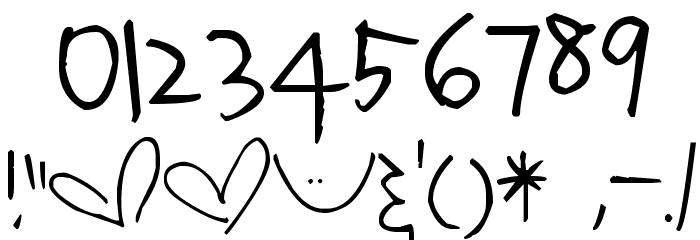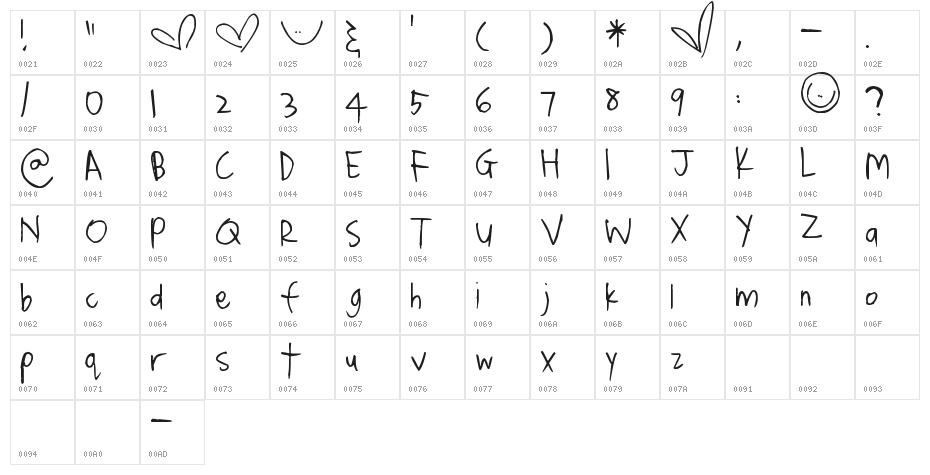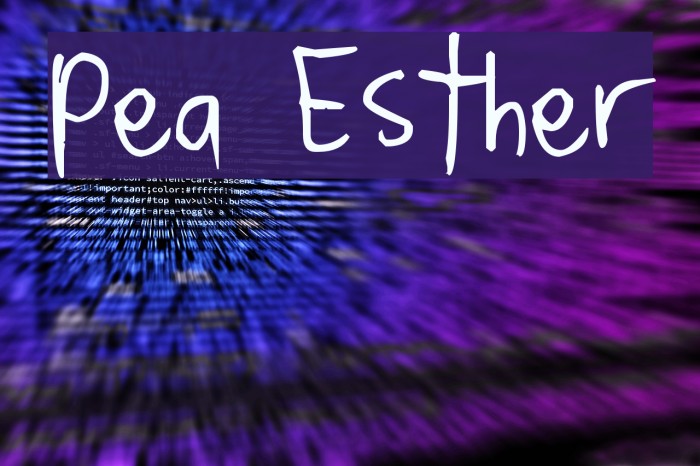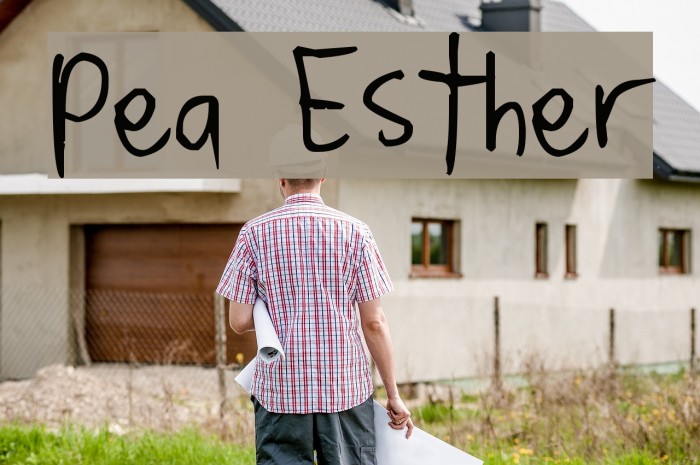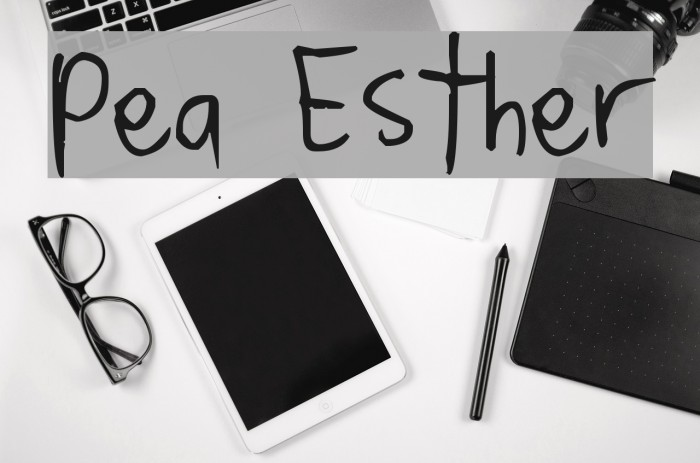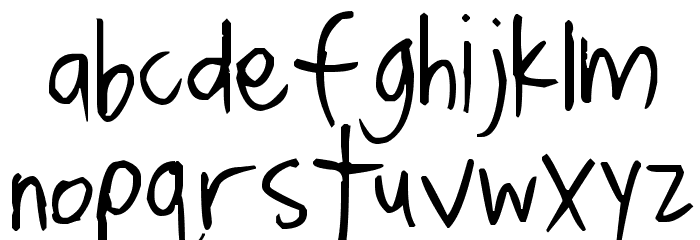
Pea Esther Font
Pea Esther Description
This font exudes a playful and casual handwritten style, characterized by its uneven strokes and slightly irregular letterforms. The uppercase and lowercase letters maintain a consistent flow, giving it a personal and informal touch. The numbers and special characters follow the same whimsical style, adding to its charm. The overall appearance is approachable and friendly, making it suitable for projects that require a personal or informal tone. Its unique style can add a touch of individuality to any design.
| Use Case | Headlines, Informal text, Personal projects |
| Proposed Projects | Ideal for greeting cards, personal notes, children's books, and informal branding. |